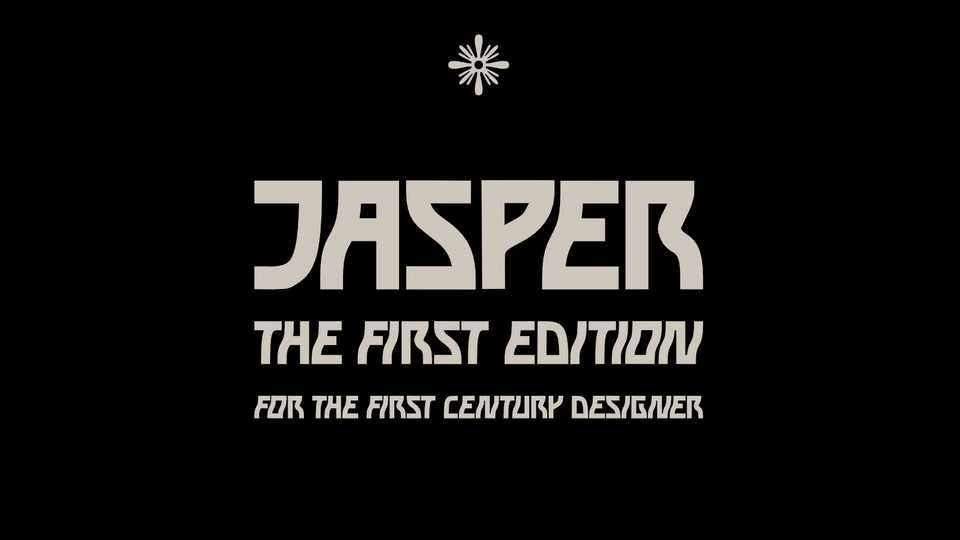
Download Jasper font, a modern display typeface with clean geometric shapes, sharp angles and smooth curves. With its unique personality Jasper font is ideal for posters, headlines, album artworks and typographic combinations.
Designer: Robert Duthie